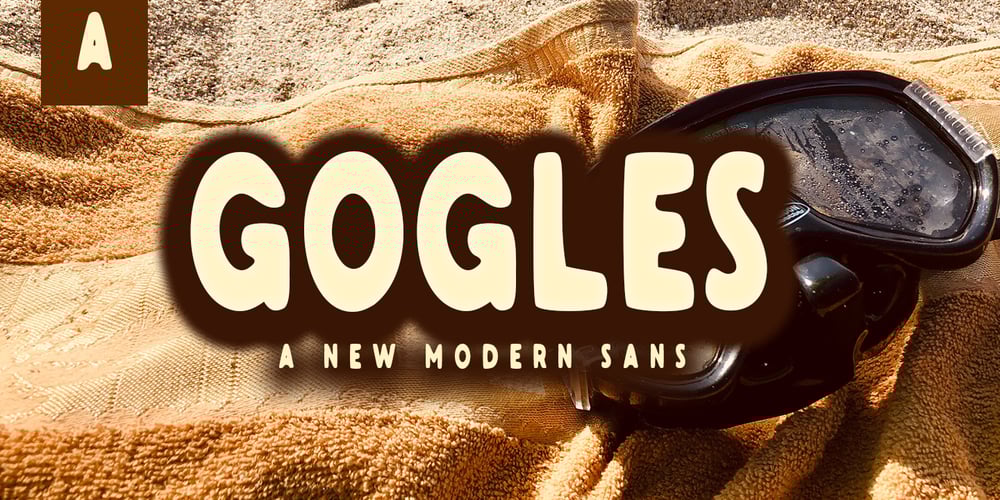
Gogles Font Family was designed by Muhammad Nasir and published by Aqeela Studio. Gogles contains 1 styles and family package options. Inspired by strange classic typography, Gogles has its own unique style. This font is best suited for headlines of all sizes, as well as for blocks of text that have maximum and minimum variations. The Gogles style applies to all types of graphic designs on the web, print, moving images and more, and is perfect for t-shirts and other items such as posters and logos.